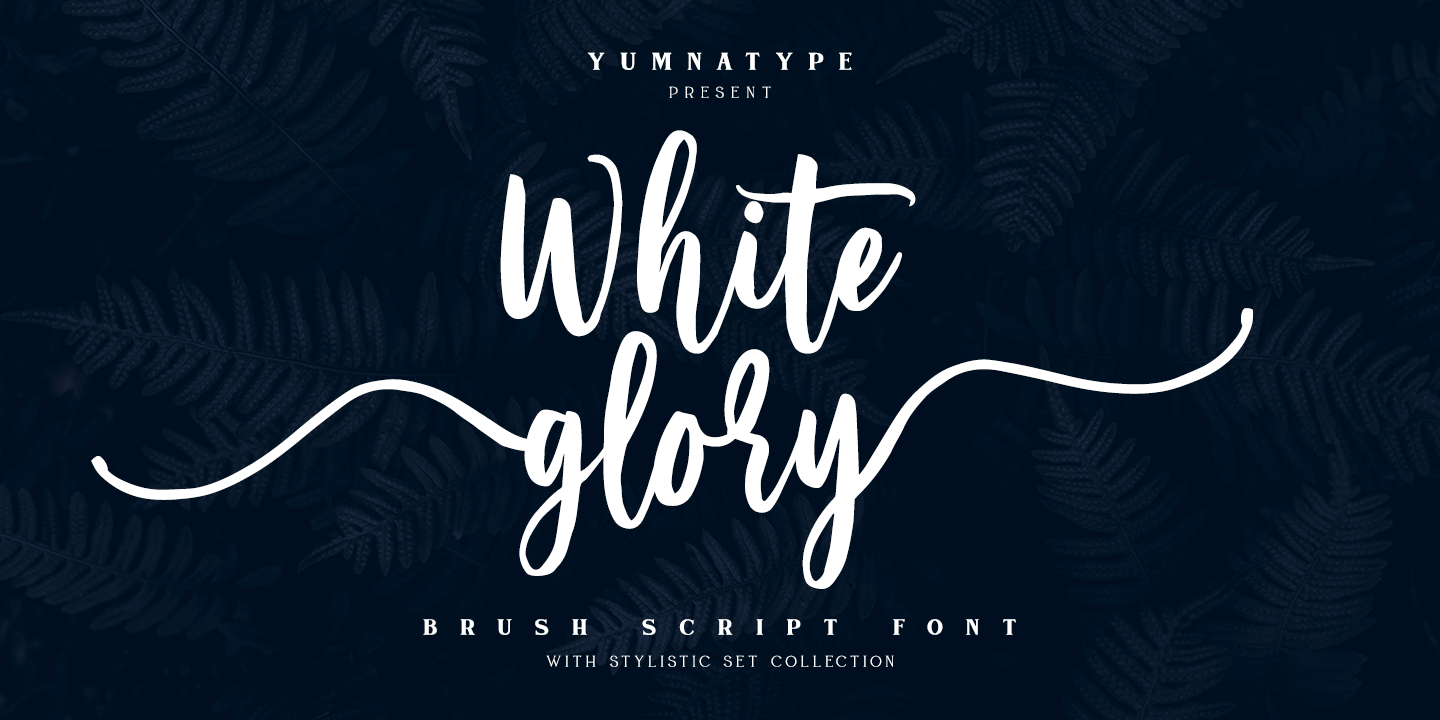
White Glory Font is perfect for luminous design applications including luxury brand identity, bridal fashion marketing, pristine beauty products, celestial-themed graphics, pure wellness branding, angelic event materials, divine religious publications, and radiant advertising campaigns that require typography with glorious character and heavenly elegance.
What makes White Glory Font exciting is its divine ability to convey purity, triumph, and heavenly beauty through magnificently crafted letterforms that embody the radiance of celestial light and glorious achievement. This majestic typeface features luminous characteristics with angelic details and triumphant proportions that instantly communicate purity, victory, and divine inspiration. The font's glorious personality and celestial appeal make it perfect for brands seeking to establish connection with aspirational audiences and communicate values of purity, triumph, and heavenly excellence.
White Glory Font family encompasses multiple weights and radiant variations designed for comprehensive divine communication. The family typically includes light, regular, medium, bold, and luminous weights, complemented by celestial italics, glorious alternates, and extensive character sets with divine symbols that enhance its heavenly aesthetic and provide maximum radiant impact.
Luxury spiritual designers consistently select White Glory Font Free Download for projects requiring typography that embodies divine glory and celestial purity. This radiant typeface delivers exceptional spiritual appeal across luxury applications, from digital wellness platforms to premium bridal materials, ensuring consistent brand messaging with unmistakable divine authority and heavenly charm. The font's gloriously crafted letterforms maintain excellent readability while delivering the luminous presence that aspirational brands demand. Celestial creative agencies worldwide rely on this divine typeface to communicate brand values of purity, triumph, and heavenly excellence. Ascend to glorious heights with White Glory Font and create memorable visual communications that resonate with audiences who appreciate divine beauty, pure elegance, and the triumphant radiance of celestial design that inspires spiritual elevation.